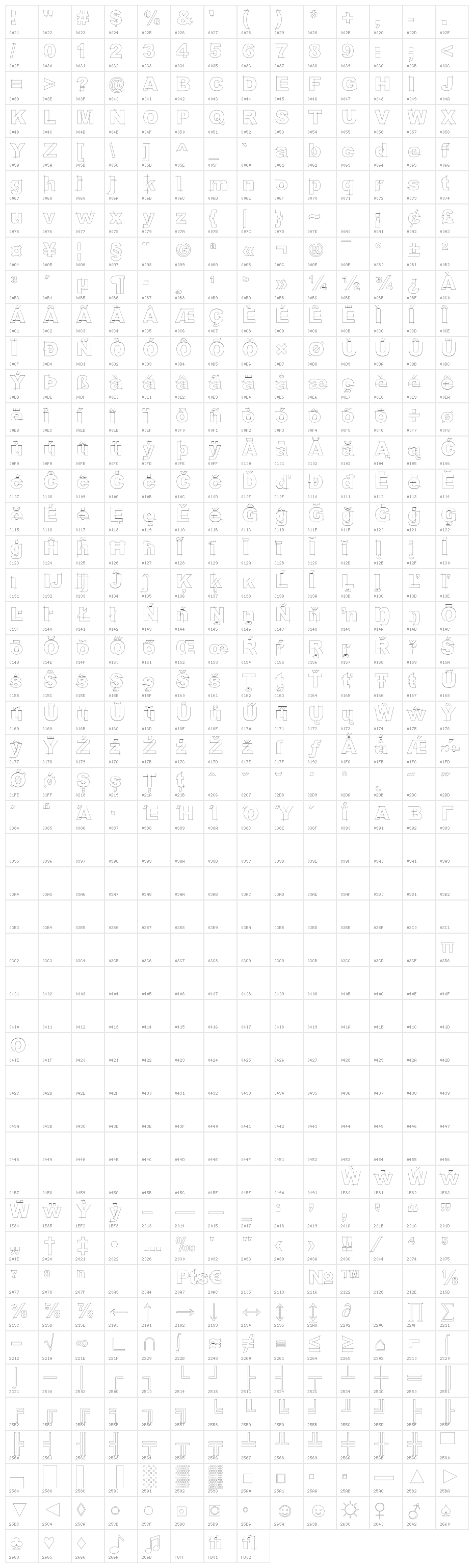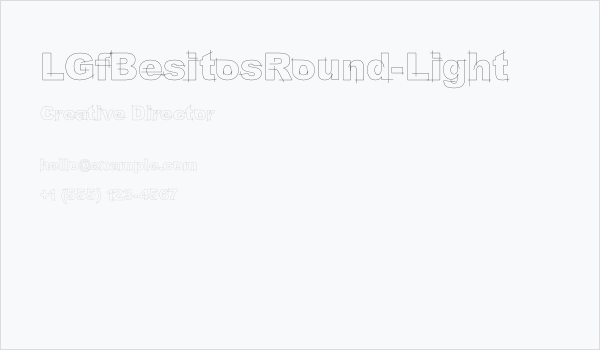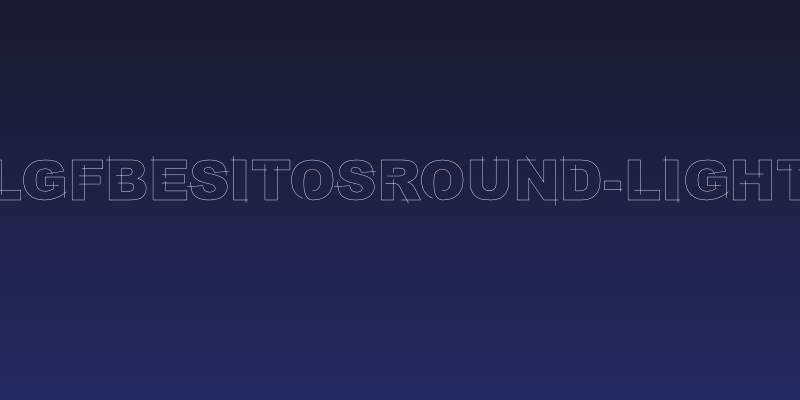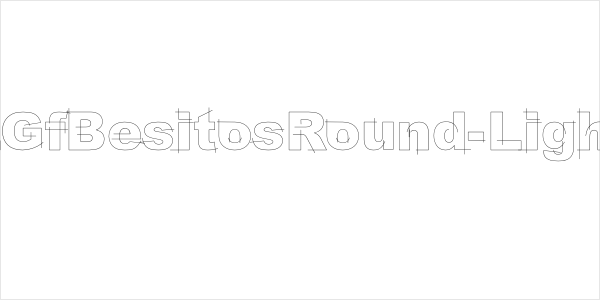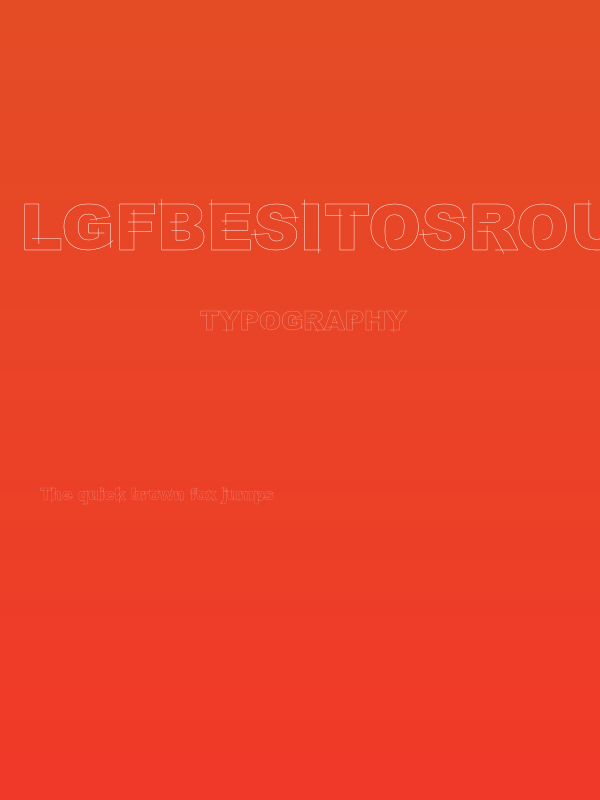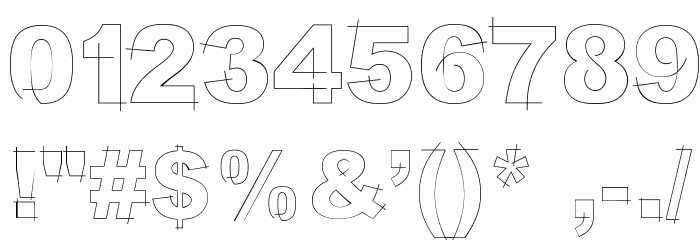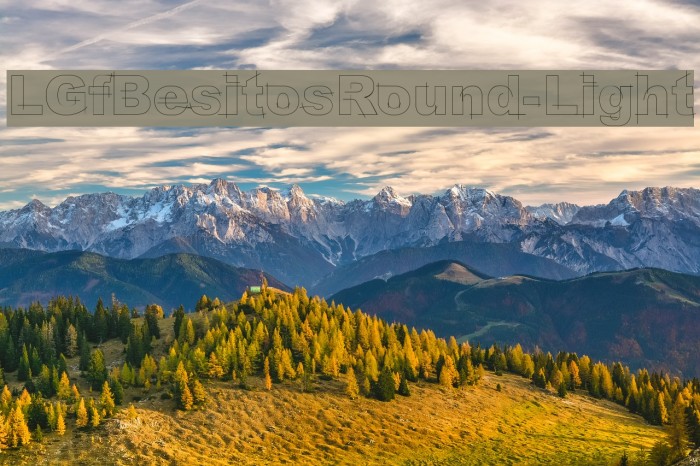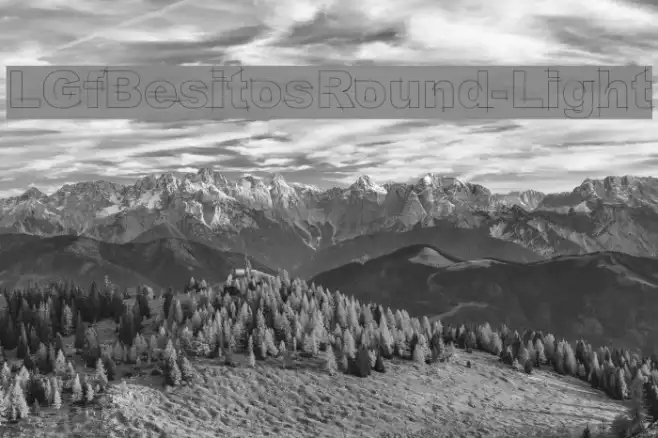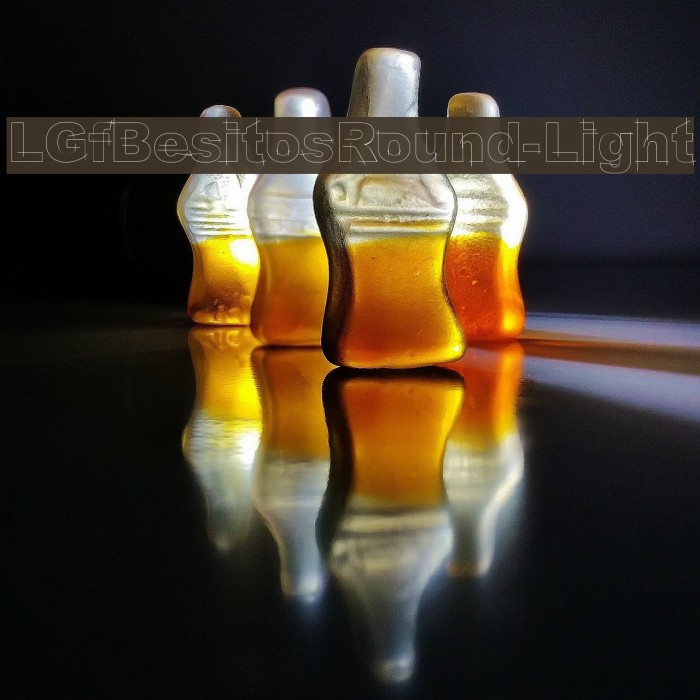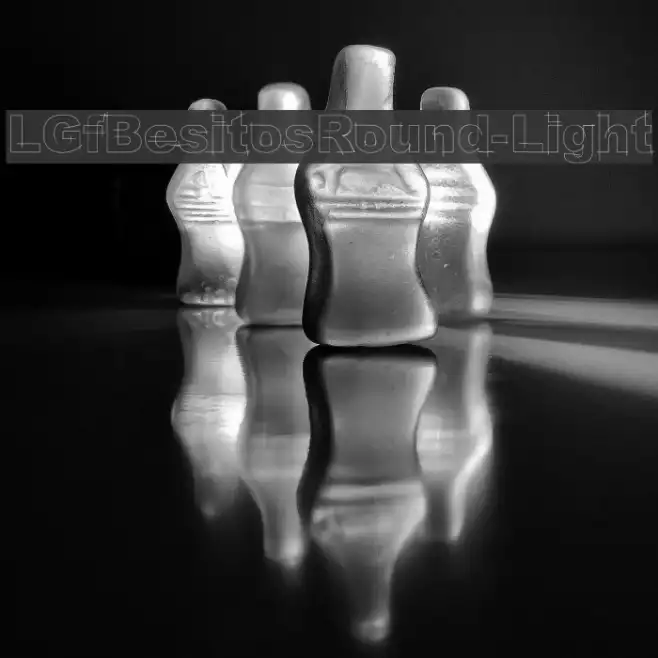
LGfBesitosRound-Light Font
LGfBesitosRound-Light Description
This font features a rounded, light-weight design with a clean and modern aesthetic. The characters are evenly spaced, providing a balanced and harmonious appearance. The uppercase letters are bold and prominent, while the lowercase letters maintain a consistent style, offering a friendly and approachable look. The numerals are clear and easy to read, making them suitable for various applications. Special characters are included, enhancing the font's versatility. Its smooth curves and minimalistic design make it ideal for contemporary projects.
| Proposed Projects | Ideal for branding, advertising, digital content, and user interfaces where a modern and friendly appearance is desired. |